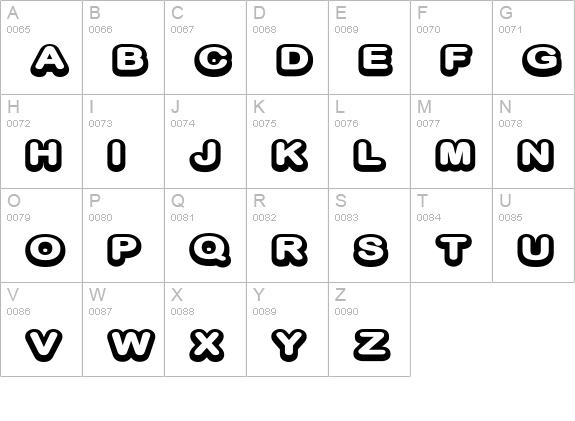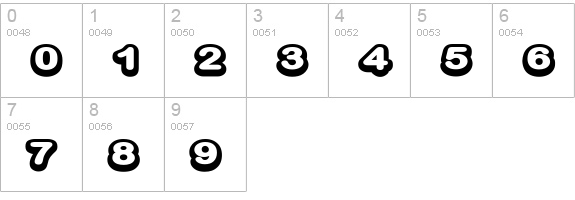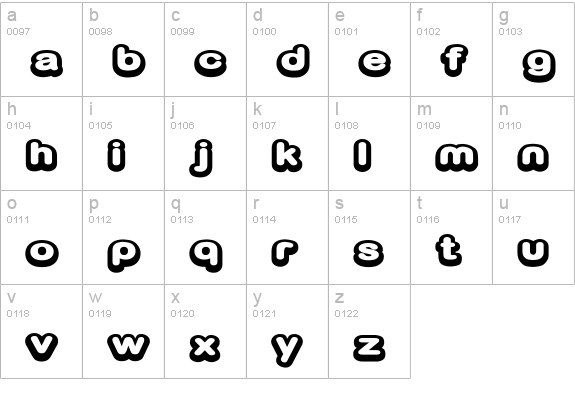
D3 Biscuitism Bold is a strong, high-contrast variant in the D3 typeface family \xE2\x80\x94 well suited to headlines, attention-grabbing titles, and strong calls-to-action.
Introducing D3 Biscuitism Bold Font, a captivating and versatile typeface that exudes a strong and bold presence. This font is the perfect choice for those seeking to make a powerful statement with their designs. With its distinctive and eye-catching letterforms, D3 Biscuitism Bold commands attention and adds a touch of sophistication to any project. Designed with precision and attention to detail, this font boasts a unique blend of modern and classic elements. Its sleek and confident strokes effortlessly convey a sense of authority and professionalism. Whether used for headlines, logos, posters, or branding materials, D3 Biscuitism Bold instantly elevates the visual appeal of any composition. One of the best features of D3 Biscuitism Bold Font is that it is freely available to download at FontsMarket.com. This means that you can easily access this exceptional font without any hassle. By offering it for free, the creators have made it accessible to a wide range of designers and enthusiasts who are looking to enhance their creative projects. Embrace the power of D3 Biscuitism Bold Font and make your designs stand out from the crowd. Its bold and commanding presence will captivate your audience and leave a lasting impression. Download it today from FontsMarket.com and unlock a world of creative possibilities. With D3 Biscuitism Bold, your design projects will never be the same again.